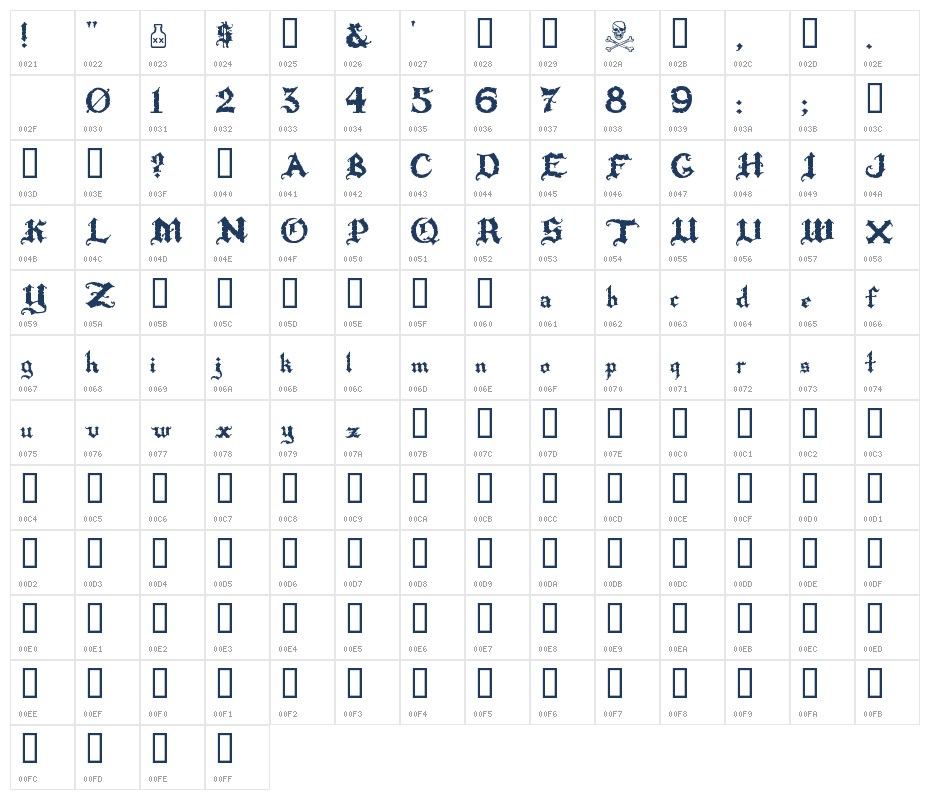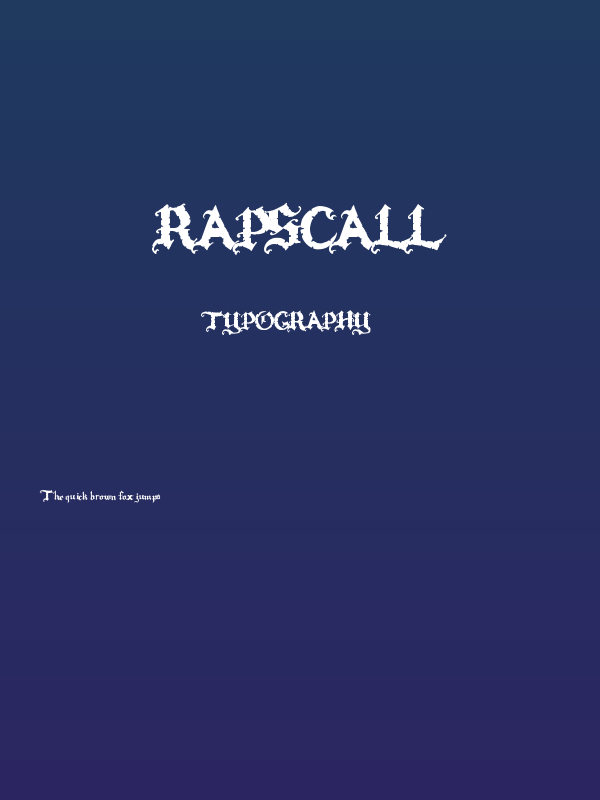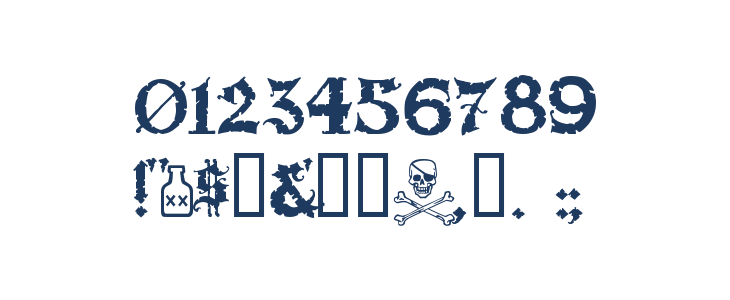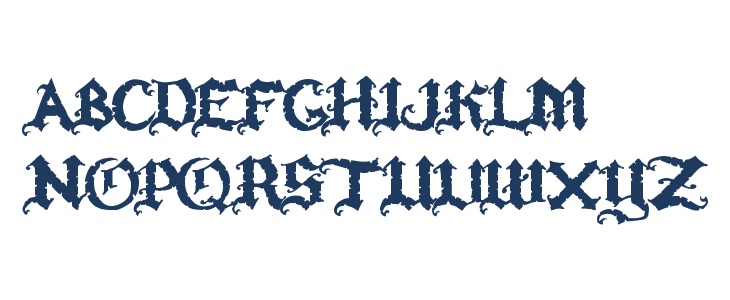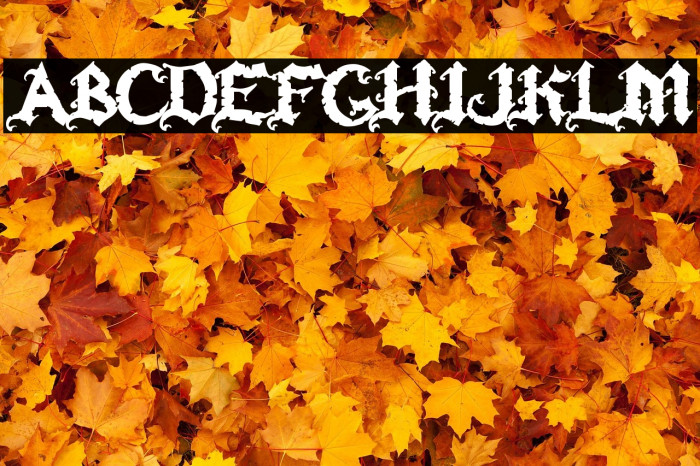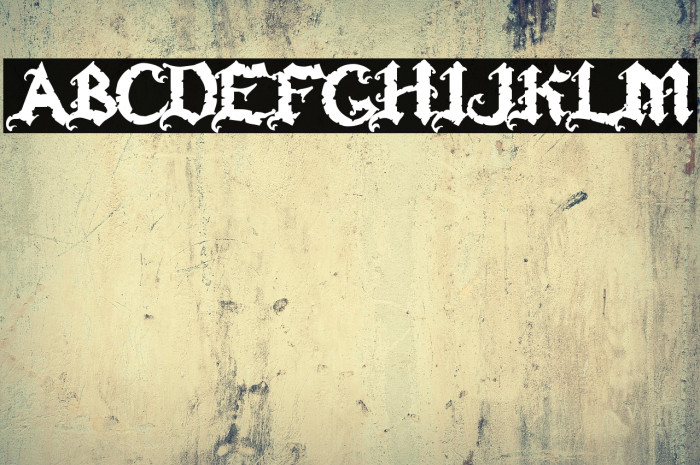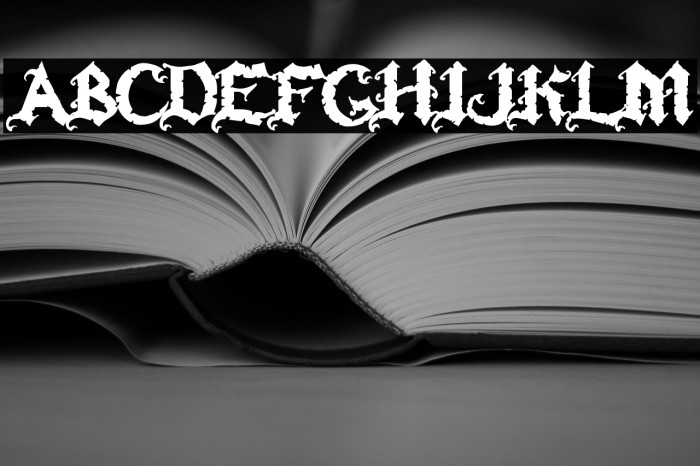
RAPSCALL Font
RAPSCALL Description
A decorative, gothic-style font with a distressed, ornate appearance, featuring sharp edges and intricate details.
| Overall Style | Gothic, Vintage, Ornate |
| Use Case | Headlines, Titles, Logos, Posters |
| Author | Fonts by Julieta Ulanovsky |